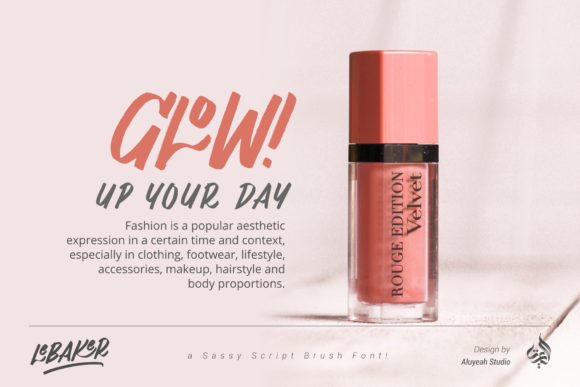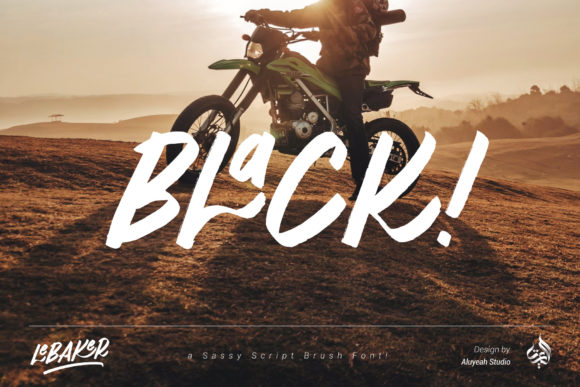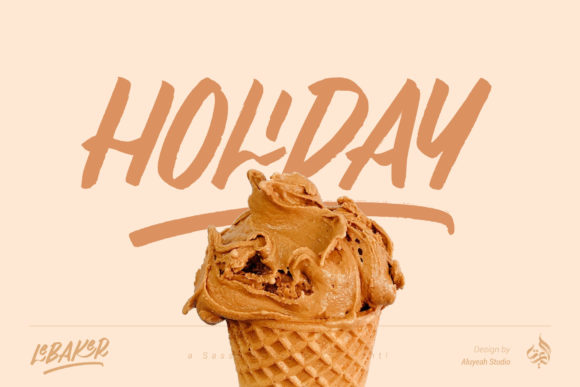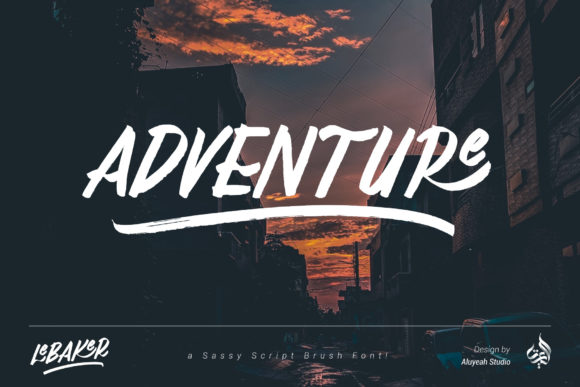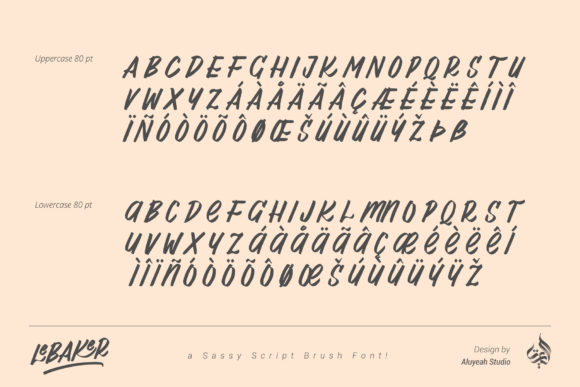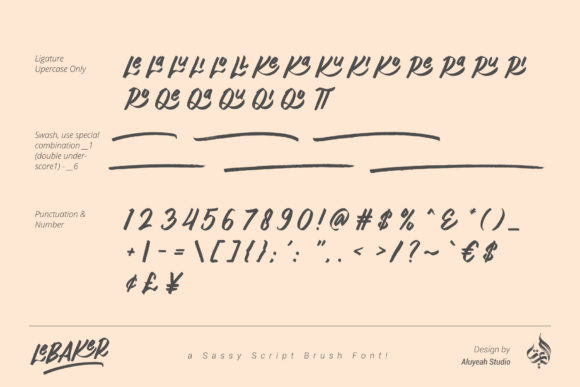
Introducing AL LeBaker Font: The Sassy Script Brush Font for Authentic Handwriting
Are you tired of using the same old fonts for your design projects? Do you want to add a touch of authenticity and personality to your handwriting? Look no further than the AL LeBaker Font, a sassy script brush font that’s taking the design world by storm. In this article, we’ll dive into the features and benefits of this amazing font and explore how it can elevate your design game.
What is AL LeBaker Font?
AL LeBaker Font is a script brush font that’s designed to mimic authentic handwriting. With its dynamic ligatures and unique character set, this font allows you to create stunning, one-of-a-kind designs that are sure to grab attention. Whether you’re a designer, crafter, or DIY enthusiast, AL LeBaker Font is the perfect tool for adding a personal touch to your projects.
Key Features of AL LeBaker Font
- Authentic Handwriting: AL LeBaker Font is designed to replicate the look and feel of real handwriting. With its subtle imperfections and variations, this font adds a touch of humanity to your designs.
- Dynamic Ligatures: What sets AL LeBaker Font apart is its use of dynamic ligatures. These special characters combine to create a unique, flowing script that’s full of personality.
- Sassy and Scriptive: AL LeBaker Font is the perfect blend of sass and script. Its bold, expressive letters are perfect for making a statement or adding a touch of whimsy to your designs.
Benefits of Using AL LeBaker Font
So why should you choose AL LeBaker Font for your design projects? Here are just a few benefits of using this amazing font:
- Adds Personality: With AL LeBaker Font, you can add a touch of personality to your designs that sets them apart from the crowd.
- Increases Engagement: The unique, hand-written look of AL LeBaker Font is sure to grab attention and increase engagement with your audience.
- Versatile: AL LeBaker Font is perfect for a wide range of design projects, from branding and advertising to crafting and DIY.
- Time-Saving: With AL LeBaker Font, you can create stunning designs in a fraction of the time it would take to create them from scratch.
Who Can Benefit from AL LeBaker Font?
AL LeBaker Font is perfect for a wide range of designers, crafters, and DIY enthusiasts. Here are just a few examples:
- Graphic Designers: Add a touch of personality to your branding and advertising designs with AL LeBaker Font.
- Crafters: Use AL LeBaker Font to create stunning handmade cards, gift tags, and other craft projects.
- DIY Enthusiasts: Add a personal touch to your DIY projects, from home decor to scrapbooking.
AL LeBaker Font is a game-changing script brush font that’s perfect for designers, crafters, and DIY enthusiasts. With its dynamic ligatures, authentic handwriting, and sassy scriptive style, this font is sure to add a touch of personality to your designs. Whether you’re looking to create stunning branding and advertising designs or handmade craft projects, AL LeBaker Font is the perfect tool for the job. So why wait? Download AL LeBaker Font today and start creating amazing designs that stand out from the crowd!